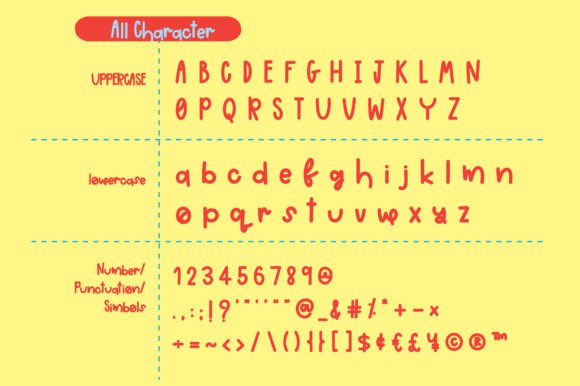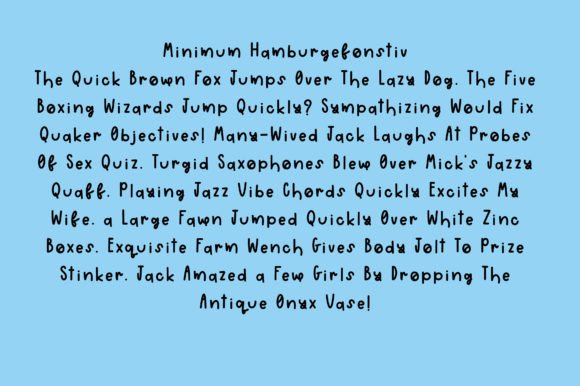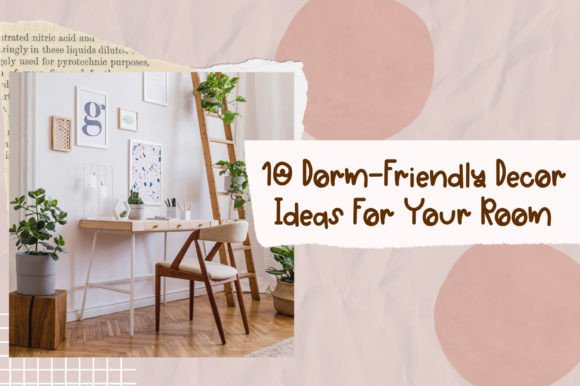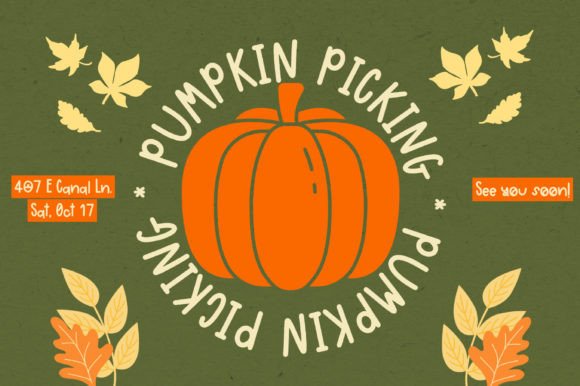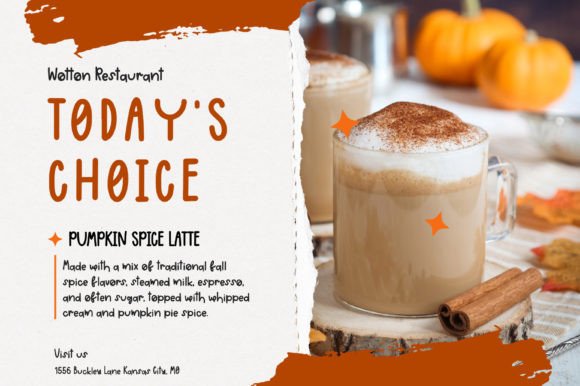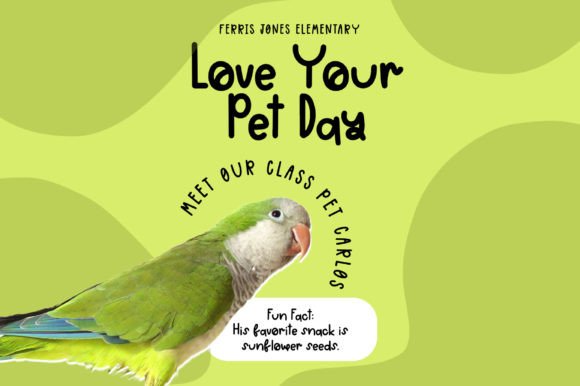
Introduction to Matchbox Font
Do you remember the thrill of finding that perfect journal or notebook, one that sparks creativity and inspires new ideas? For designers, writers, and artists, discovering a high-quality font that matches their unique style can be just as exciting. This is where the Matchbox Font comes in – a digital note font that’s about to revolutionize your creative project workflow.
With its enchanting appeal and elegant simplicity, the Matchbox Font is a valuable design resource that can elevate your free download experience. Whether you’re working on a collage, study notes, or a design project, this font’s transparent background and sans-serif look make it an ideal choice. As a digital download, it’s easily accessible and ready to be used in your favorite design software, including Procreate.
Key Features of Matchbox Font
- Unique blend of modern and vintage elements, perfect for unique designs
Honest Review: Matchbox Font
One of the things I love about the Matchbox Font is its high quality. The designer has put a lot of effort into creating a truly unique and creative font that’s perfect for a wide range of projects. Whether you’re working on a logo design, a brochure, or a website, the Matchbox Font is a great choice.
- ✨ The font is incredibly versatile and can be used in a variety of creative projects.
- ✨ The transparent background makes it easy to use with any background image or color.
- ✨ The font is highly customizable, allowing you to adjust the size, color, and style to fit your needs.
- ⚠️ The font may not be suitable for large blocks of text, as it can be difficult to read.
Overall, I’m really impressed with the Matchbox Font and would highly recommend it to anyone looking for a high-quality, creative font for their next project. Just be aware of the potential limitations, and you’ll be all set for a great design experience.
For best results, use Matchbox Font in conjunction with a transparent background to create a clean and modern look. You can also experiment with different font sizes and colors to add emphasis to your designs.
Common Use Cases for Matchbox Font
Matchbox Font is perfect for a variety of creative projects, including social media graphics, presentations, and documents. It’s also great for use in branding and marketing materials, such as logos and business cards.